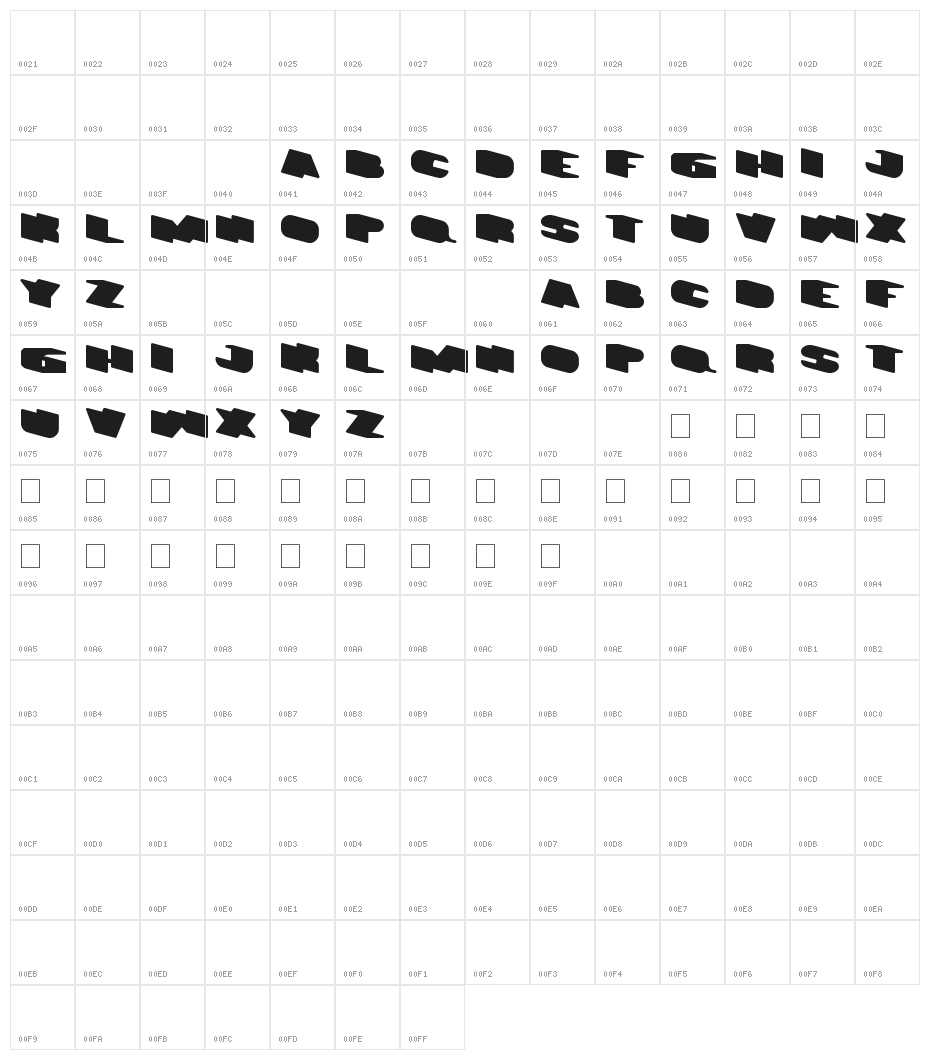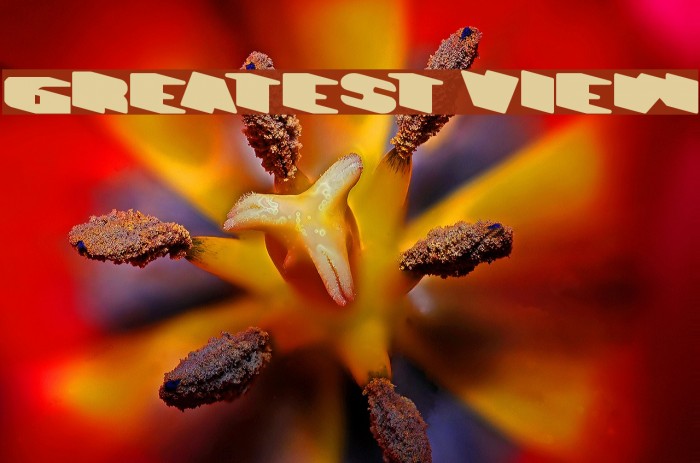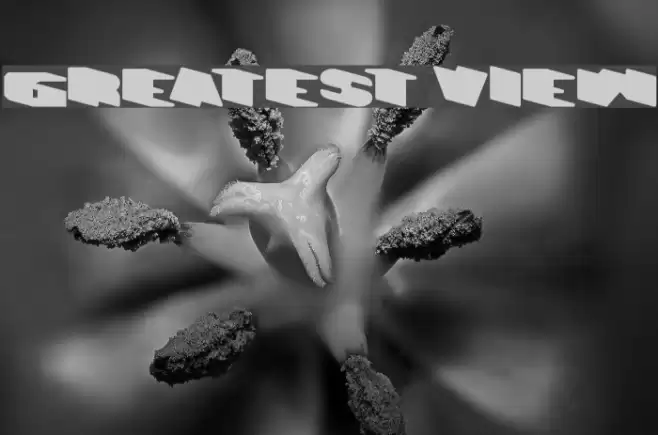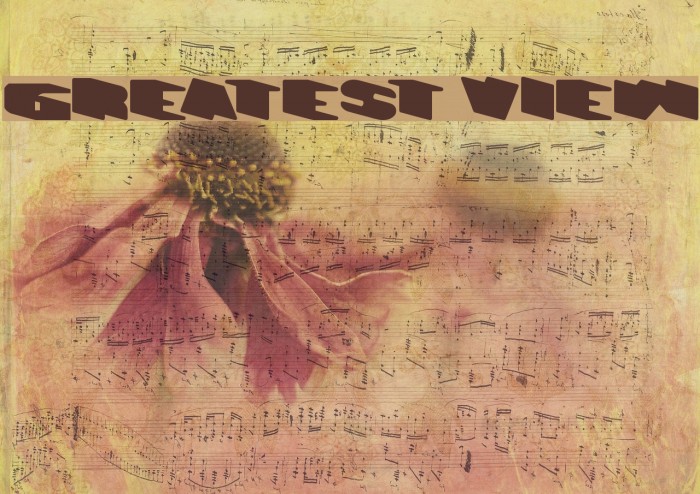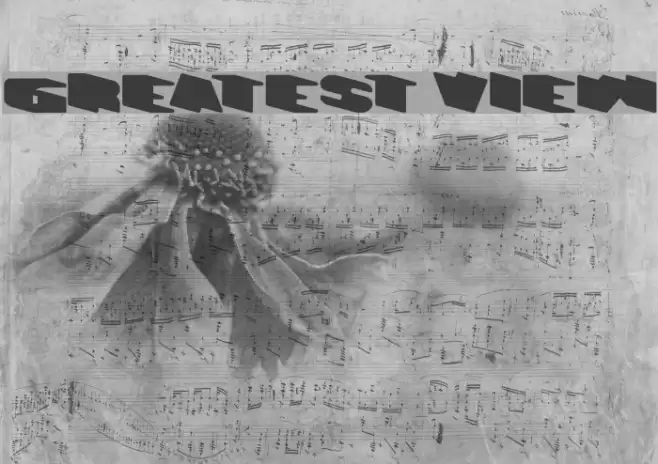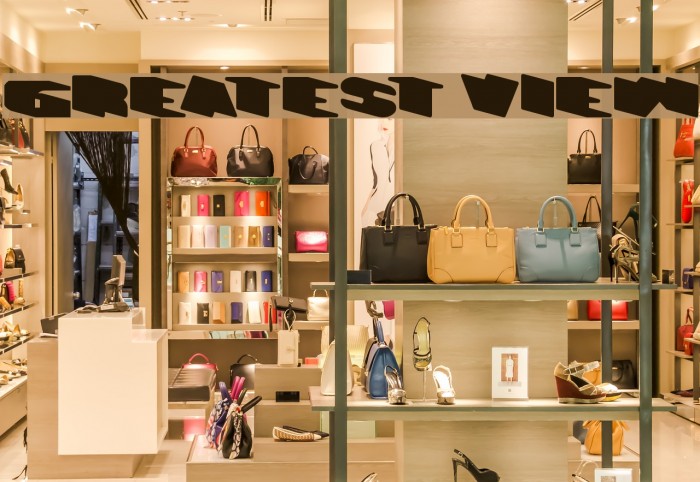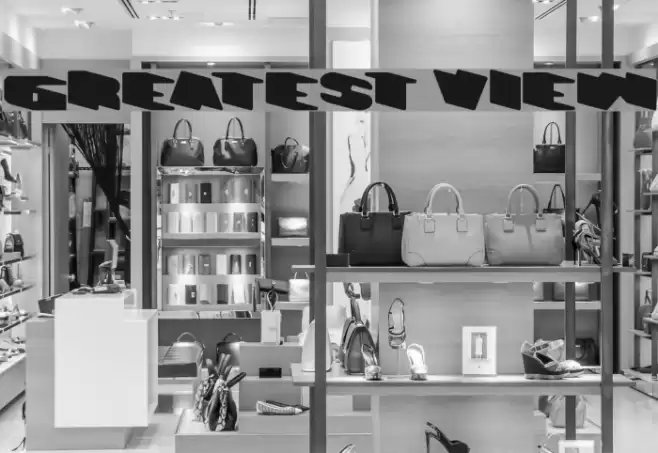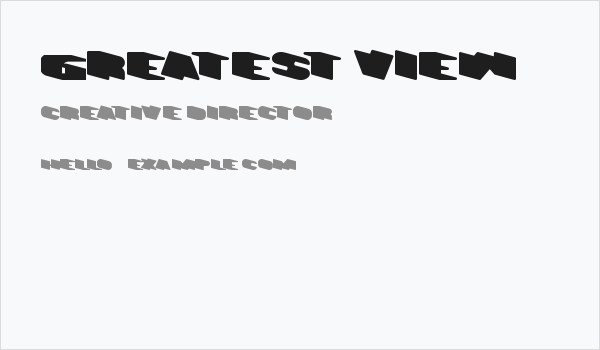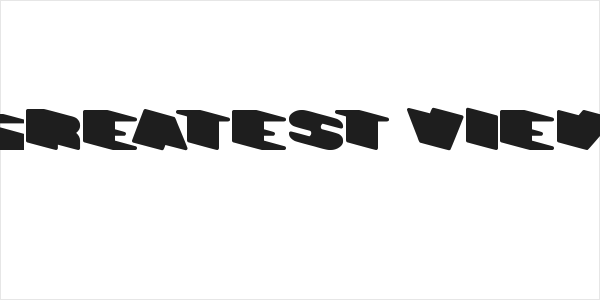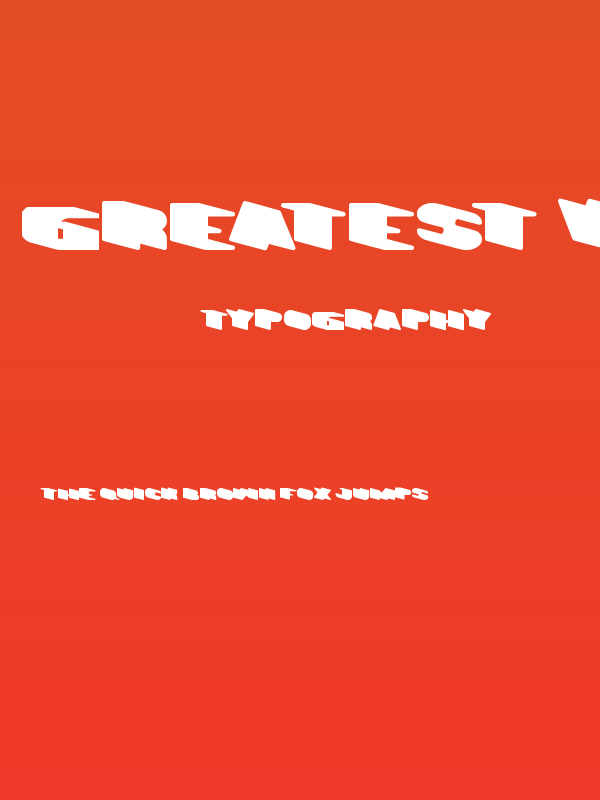
GREATEST VIEW Font
GREATEST VIEW Description
This font features a bold and dynamic style with a strong presence, characterized by its thick, blocky letterforms and sharp angles. The design incorporates a sense of movement and energy, making it stand out in any context. The uppercase letters are consistent in height and width, creating a uniform appearance. The boldness of the font is accentuated by its solid, filled-in characters, which convey a sense of strength and stability. The unique angular cuts and edges give it a modern and edgy feel, suitable for attention-grabbing headlines and impactful designs.
Proposed ProjectsIdeal for posters, logos, branding, and any design requiring a strong visual impact.